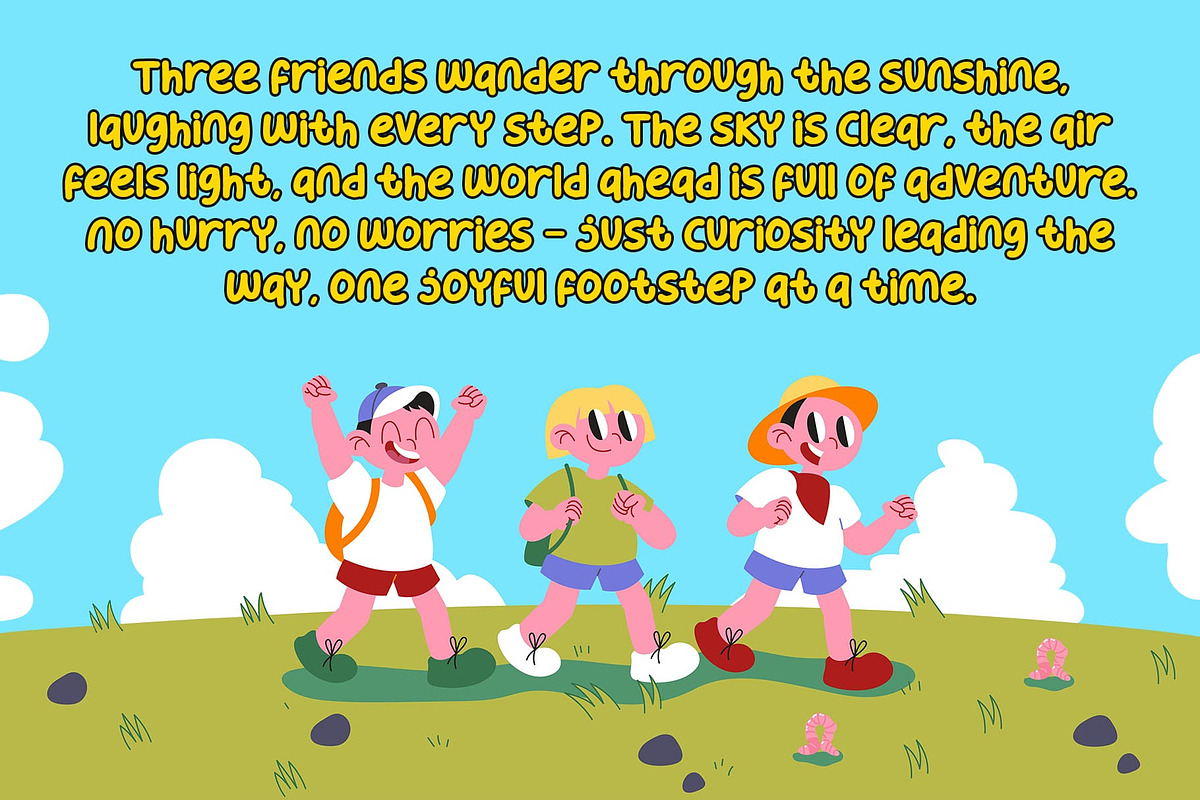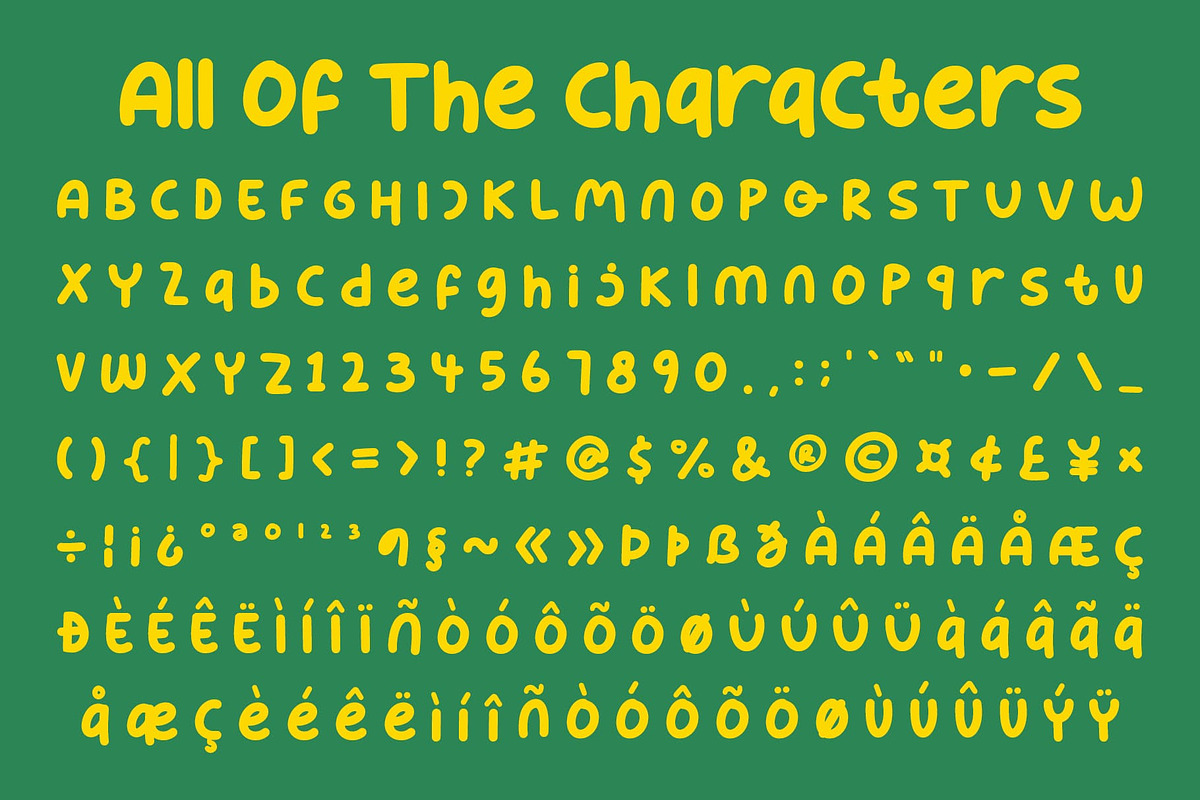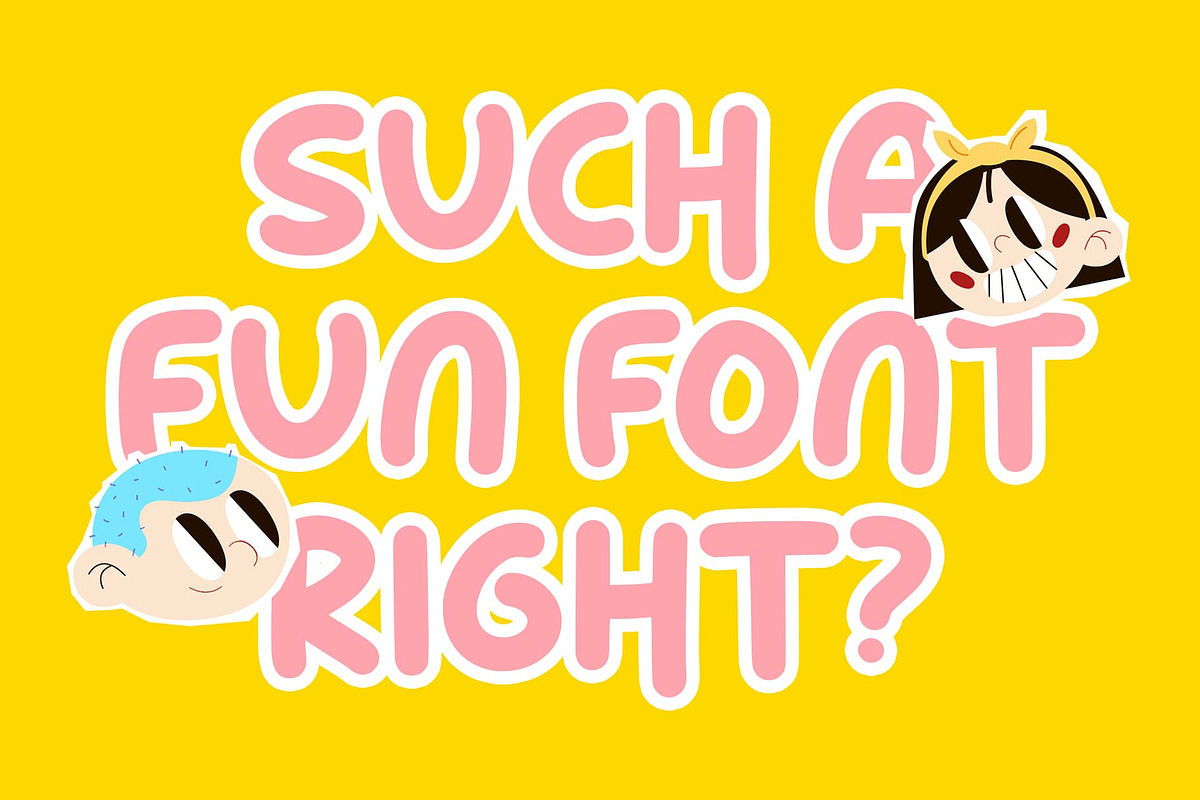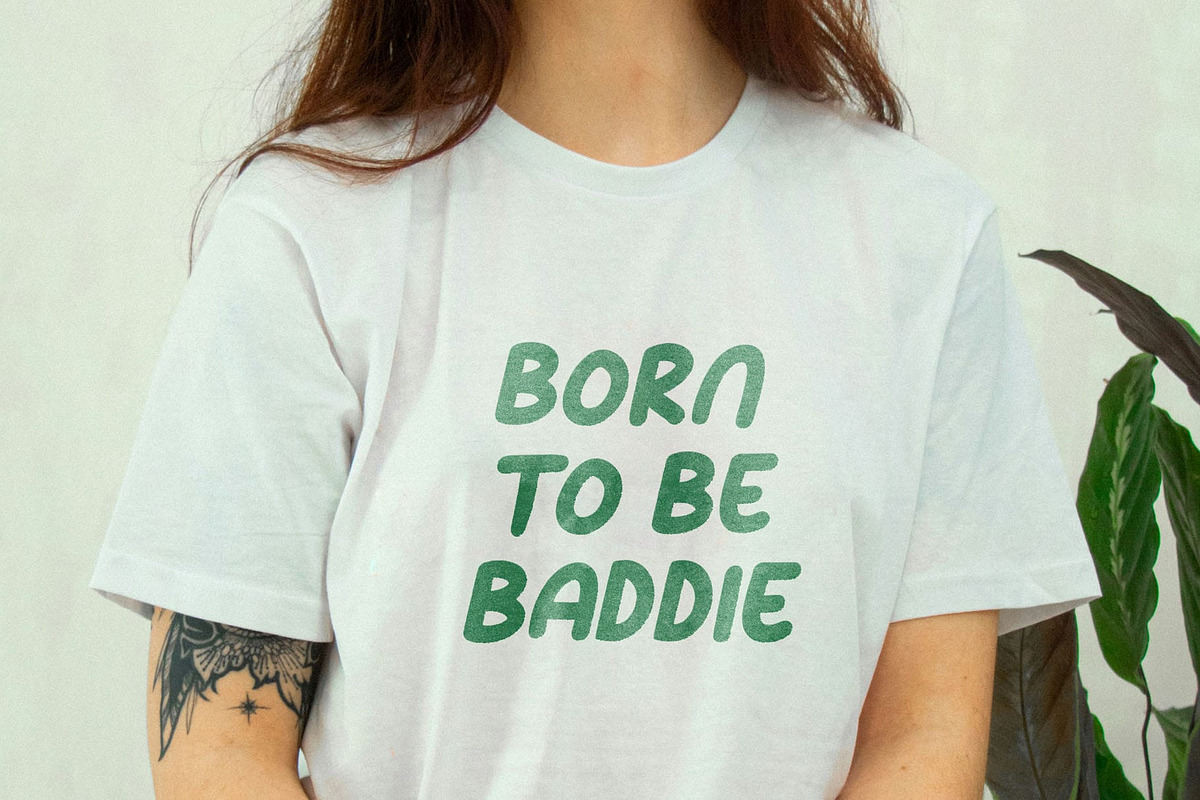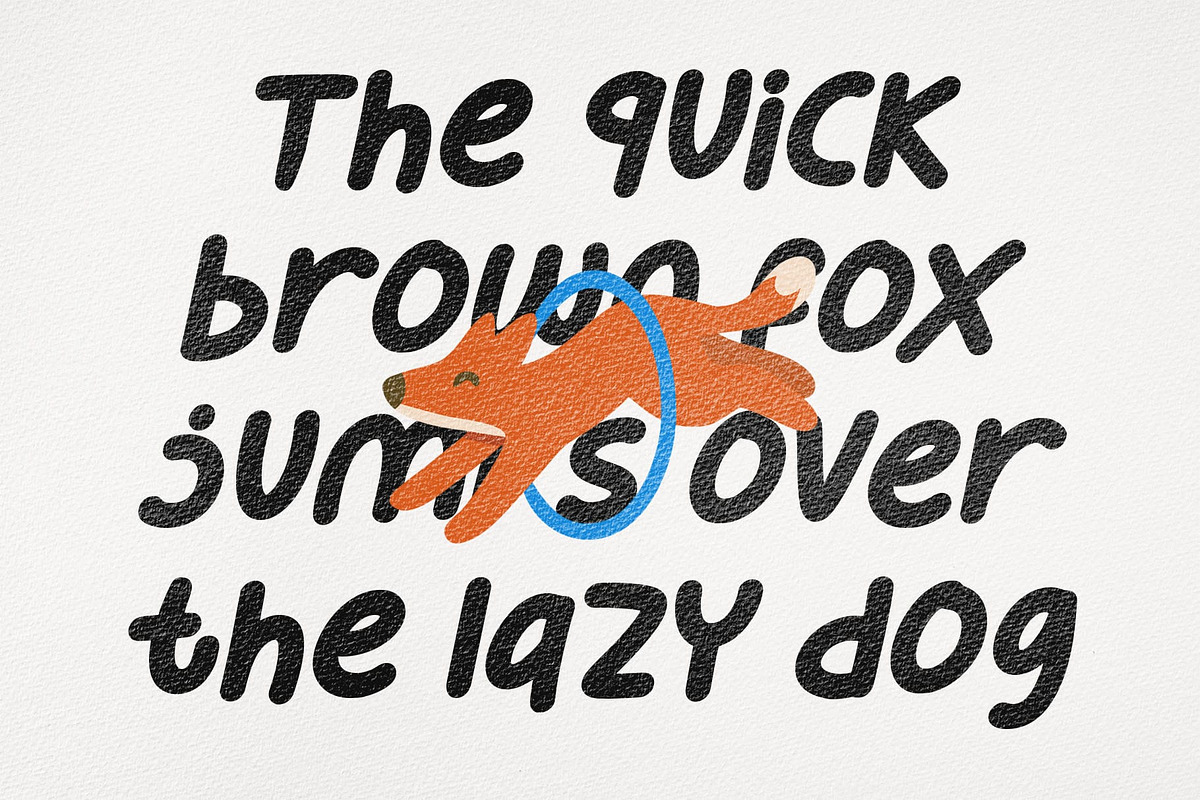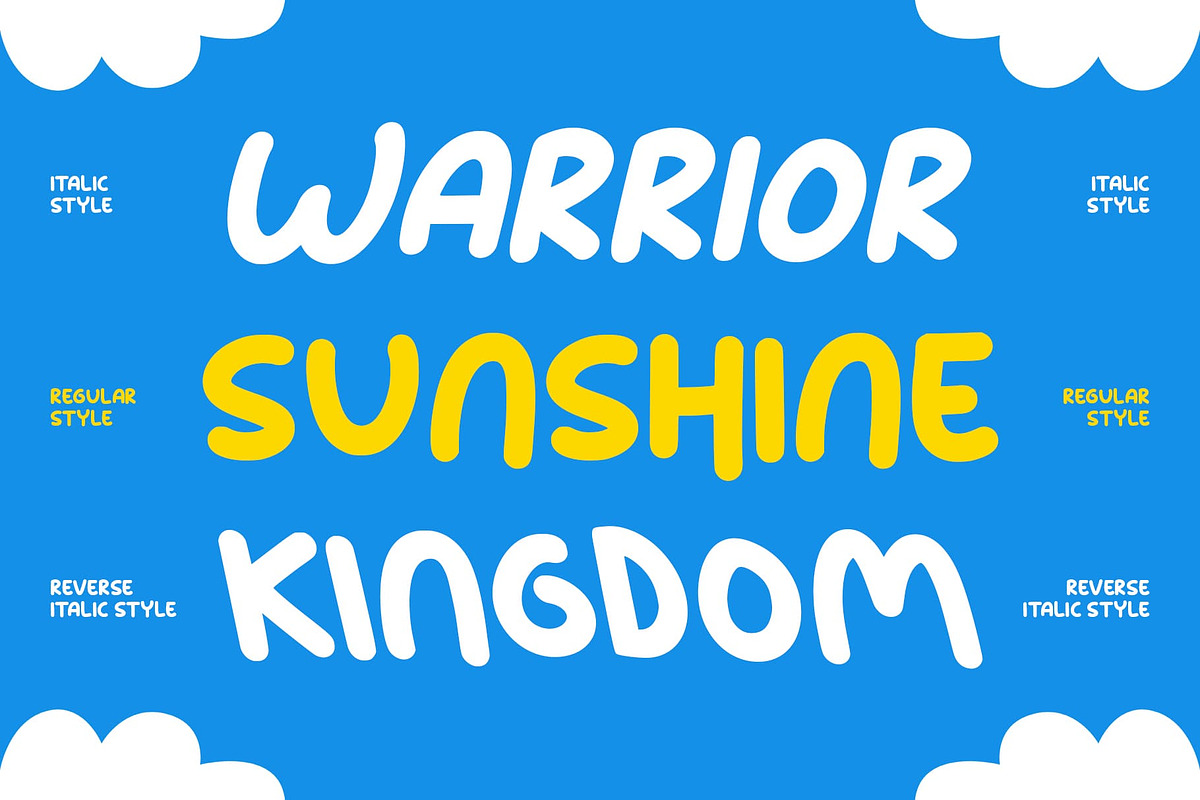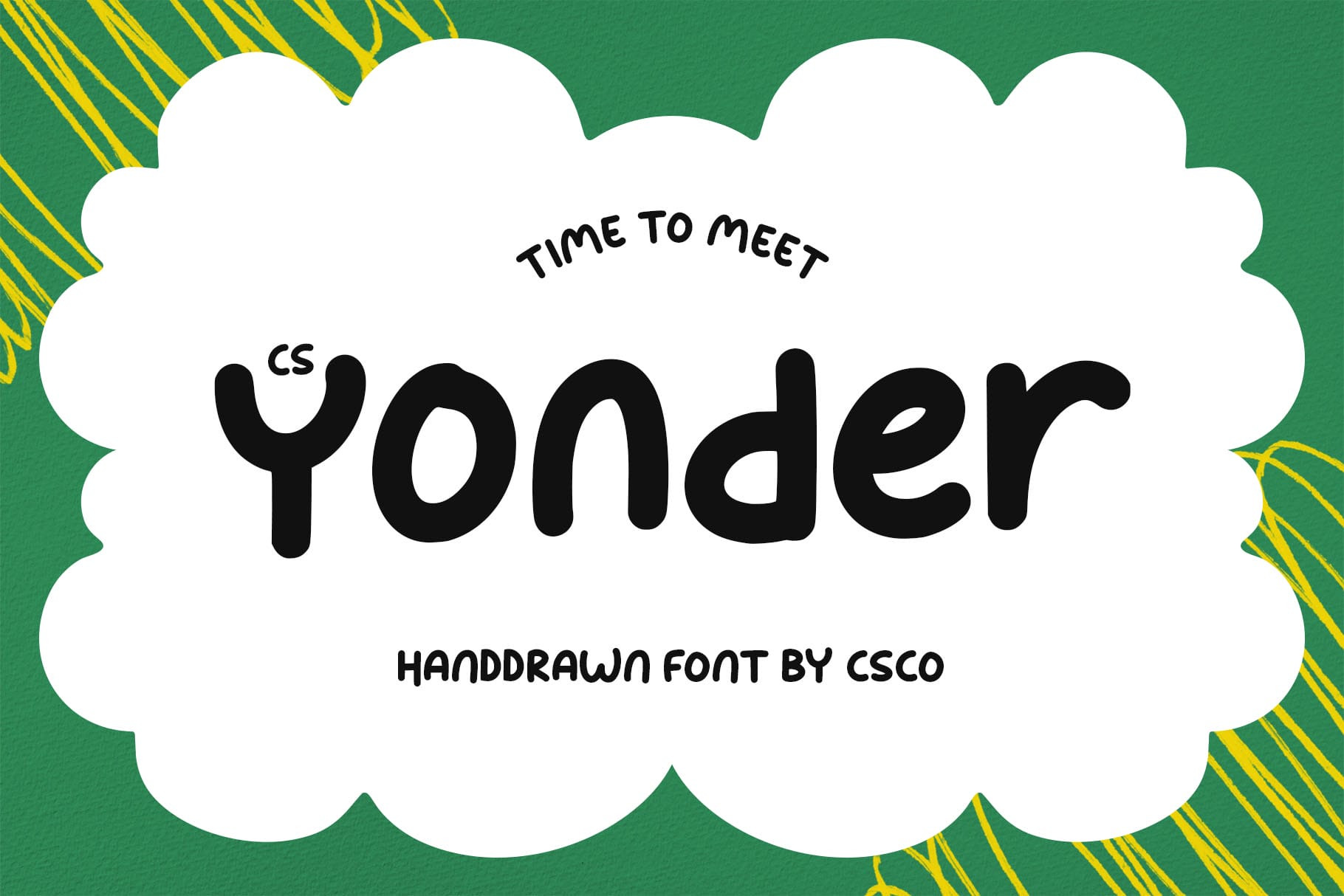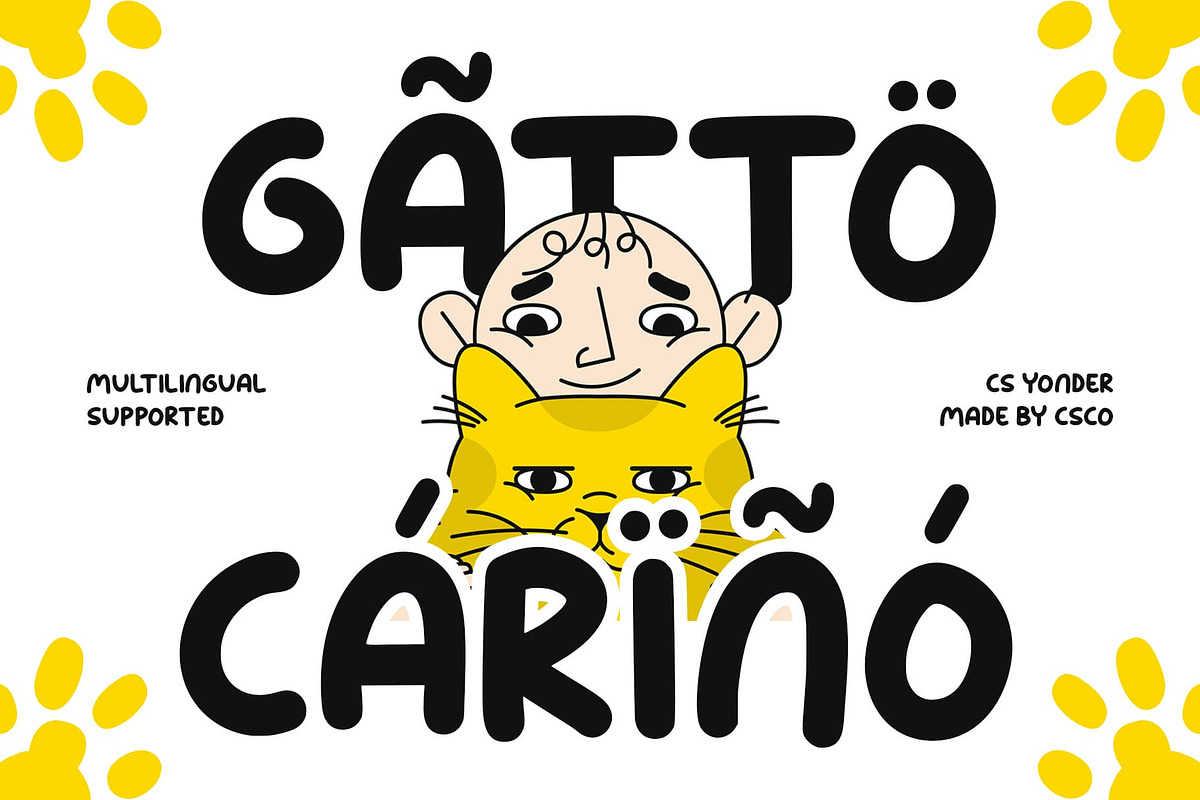
CS Yonder – Cute Kids Font
CS Yonder – Playful Charm for Bright Imagination
Friendly Handwritten Style for Kids This is a cute kids font with a handwritten touch that captures the joy and spontaneity of childhood. Each letter features clean yet organic lines and combination sans serif, creating a design that feels approachable, fun, and full of personality. Its friendly appearance makes it ideal for projects that celebrate creativity and imagination.
Cheerful Shapes with Expressive Energy The rounded, neatly crafted forms of this font bring warmth and positivity to any design. The handwritten influence adds a sense of authenticity and motion, giving your text a cheerful rhythm that feels natural and lively. Whether for children’s content or playful branding, this font radiates happiness and lightheartedness.
Perfect for Creative and Colorful Designs From children’s books and educational materials to posters, logos, and packaging, this font shines in colorful and imaginative projects. Its versatility allows it to adapt beautifully across print and digital media, enhancing your design with a joyful and engaging tone.
A Fun Typeface with Heart and Character This font is more than a cute display font it’s a celebration of youth and creativity. Blending clarity with expressive charm, it invites designers to create works that feel fun, friendly, and inspiring. Perfect for bringing smiles and positivity to every creative project.